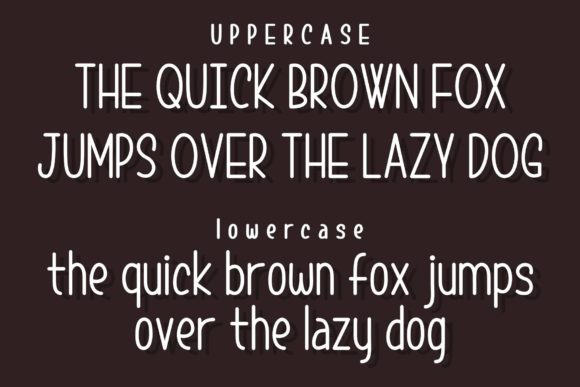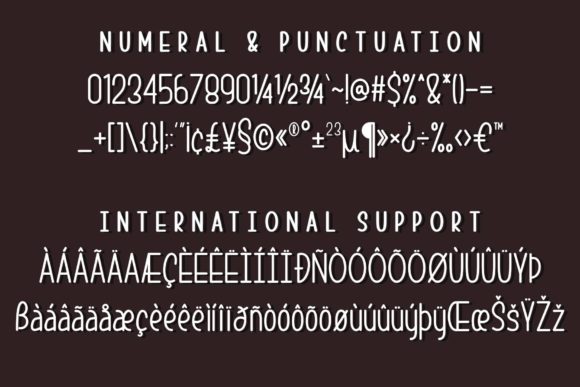
Introducing Afternoon Coffee Font: The Perfect Blend of Cute and Casual
Are you tired of using the same old fonts in your design projects? Do you want to add a touch of laid-back charm to your creations? Look no further than the Afternoon Coffee Font! This adorable sans serif font is designed to evoke the feeling of taking a break and savoring a cup of coffee on a lazy afternoon.
As a designer or crafter, you know how important it is to choose the right font for your project. The font you choose can make or break the overall aesthetic and feel of your design. That’s why Afternoon Coffee Font is the perfect choice for anyone looking to add a down-to-earth and casual touch to their work. Whether you’re designing a logo, creating a social media graphic, or crafting a handmade card, this font is sure to impress.
What Makes Afternoon Coffee Font So Special?
So, what sets Afternoon Coffee Font apart from other fonts out there? Here are just a few things that make it so special:
- Cute and Casual: Afternoon Coffee Font is designed to be cute and casual, making it perfect for designers and crafters who want to add a touch of whimsy to their work.
- Sans Serif: The sans serif design of Afternoon Coffee Font makes it easy to read and perfect for use in a variety of design projects.
- Laid-Back and Down-to-Earth: This font is designed to evoke the feeling of taking a break and savoring a cup of coffee on a lazy afternoon. It’s the perfect choice for anyone looking to add a laid-back and down-to-earth feel to their designs.
How to Use Afternoon Coffee Font in Your Design Projects
Using Afternoon Coffee Font in your design projects is easy! Here are a few tips to get you started:
- Pair it with Other Fonts: Afternoon Coffee Font pairs perfectly with other fonts, making it easy to create a unique and visually appealing design.
- Use it for Headings and Titles: The bold and playful design of Afternoon Coffee Font makes it perfect for use in headings and titles.
- Add it to Your Digital or Handmade Projects: Whether you’re creating digital graphics or handmade crafts, Afternoon Coffee Font is the perfect choice.
Why Designers and Crafters Love Afternoon Coffee Font
So, why do designers and crafters love Afternoon Coffee Font? Here are just a few reasons:
- It’s Versatile: Afternoon Coffee Font can be used in a variety of design projects, from digital graphics to handmade crafts.
- It’s Easy to Read: The sans serif design of Afternoon Coffee Font makes it easy to read, even at small sizes.
- It’s Unique: Afternoon Coffee Font is a one-of-a-kind font that’s sure to make your designs stand out from the crowd.
In conclusion, Afternoon Coffee Font is the perfect choice for designers and crafters who want to add a touch of laid-back charm to their work. With its cute and casual design, sans serif style, and versatility, this font is sure to impress. So why wait? Download Afternoon Coffee Font today and start creating designs that are as unique and special as you are!